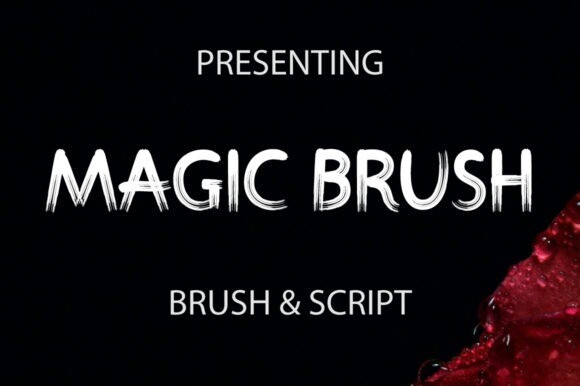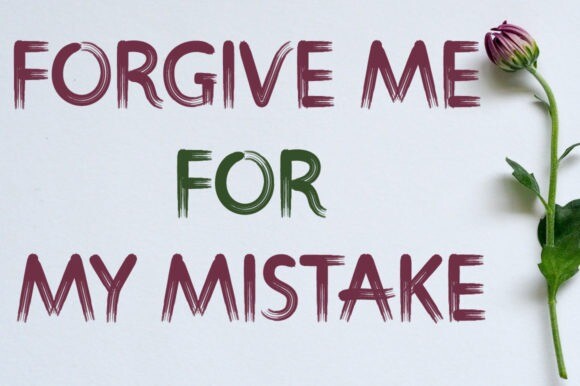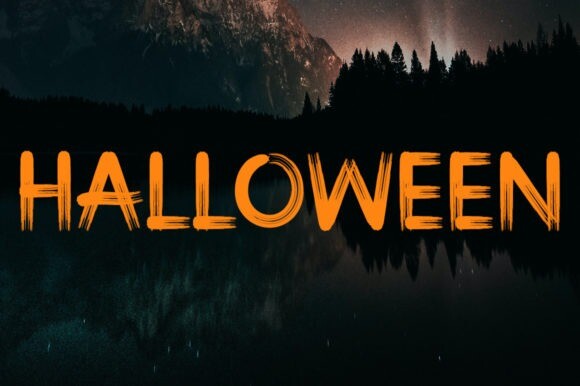
Magic Brush Font
Magic Brush is a cool and brushed display font. No matter the topic, this font will be an incredible asset to your fonts’ library, as it has the potential to elevate any creation.